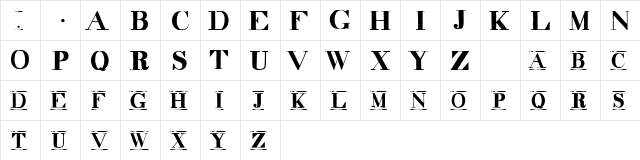
decadence itd condensed marquee Regular Font Preview
decadence itd condensed marquee Regular
decadence itd condensed marquee Regular Font Details
Design Context for decadence itd condensed marquee Typeface
decadence itd condensed marquee offers clean, dependable letterforms without strong stylistic allegiance, making it a practical choice for designers who need flexibility. The condensed width makes it efficient for tight spaces without sacrificing legibility.